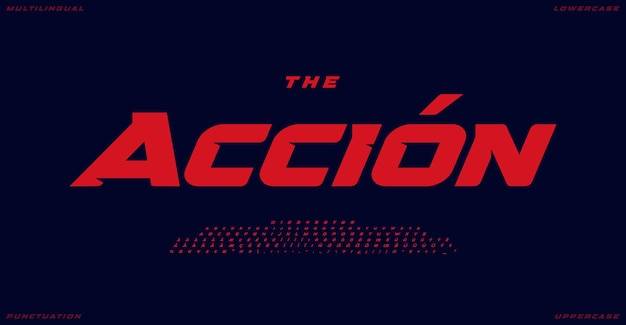
bold red dynamic alphabet sport sans typeface impactful versatile font for speed logo action headline powerful racing typography game design vector typographic design